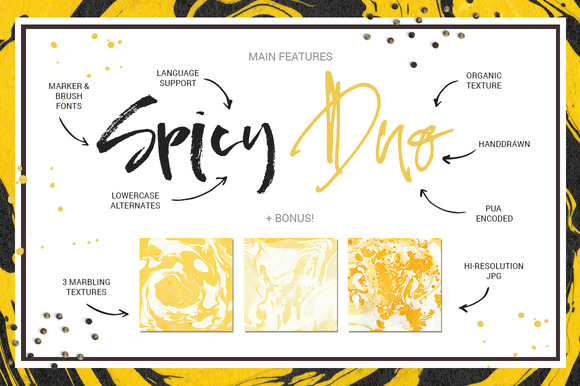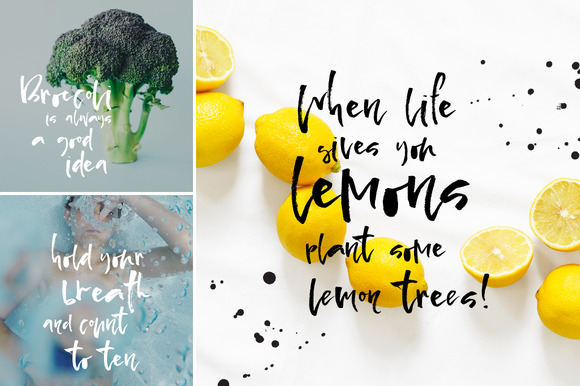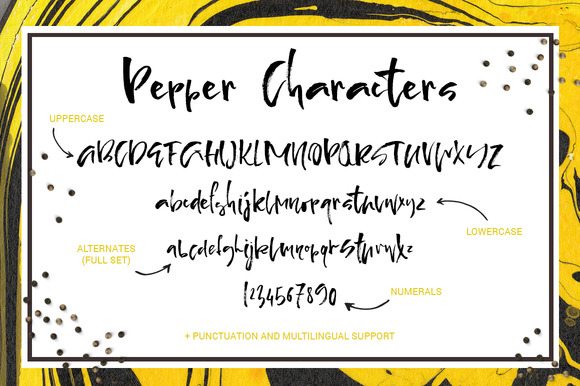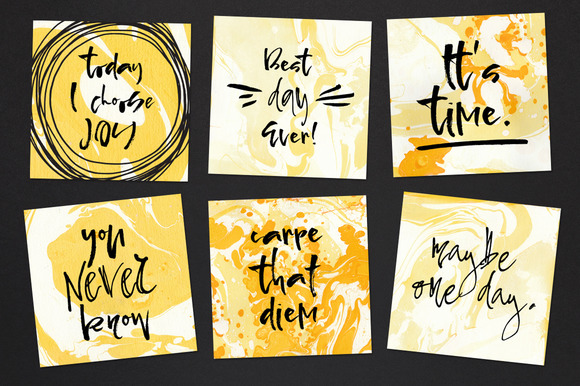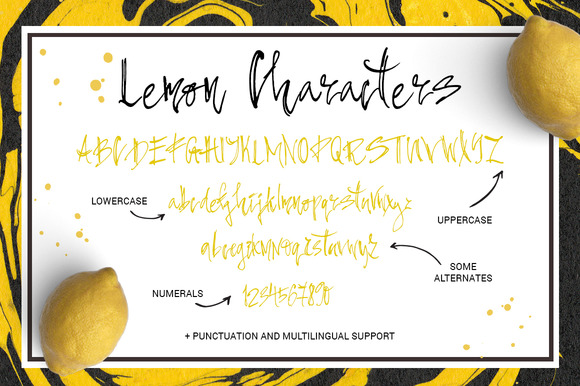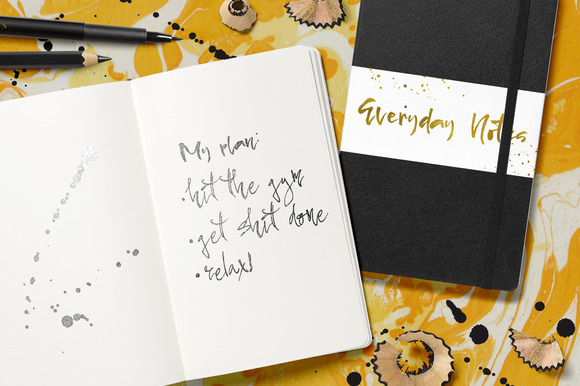
Introduction to Pepper & Lemon Font
Pepper & Lemon are a font duo with character.
Pepper is a highly-texturized brush font Lemon is a marker font with a unique feel.
Key Features of Pepper & Lemon Font